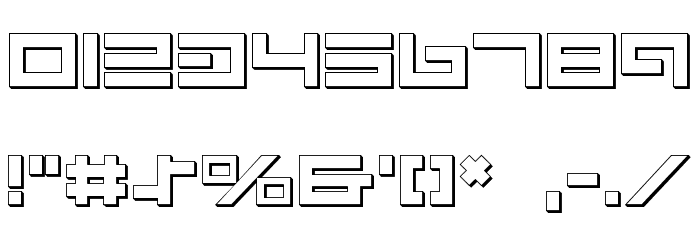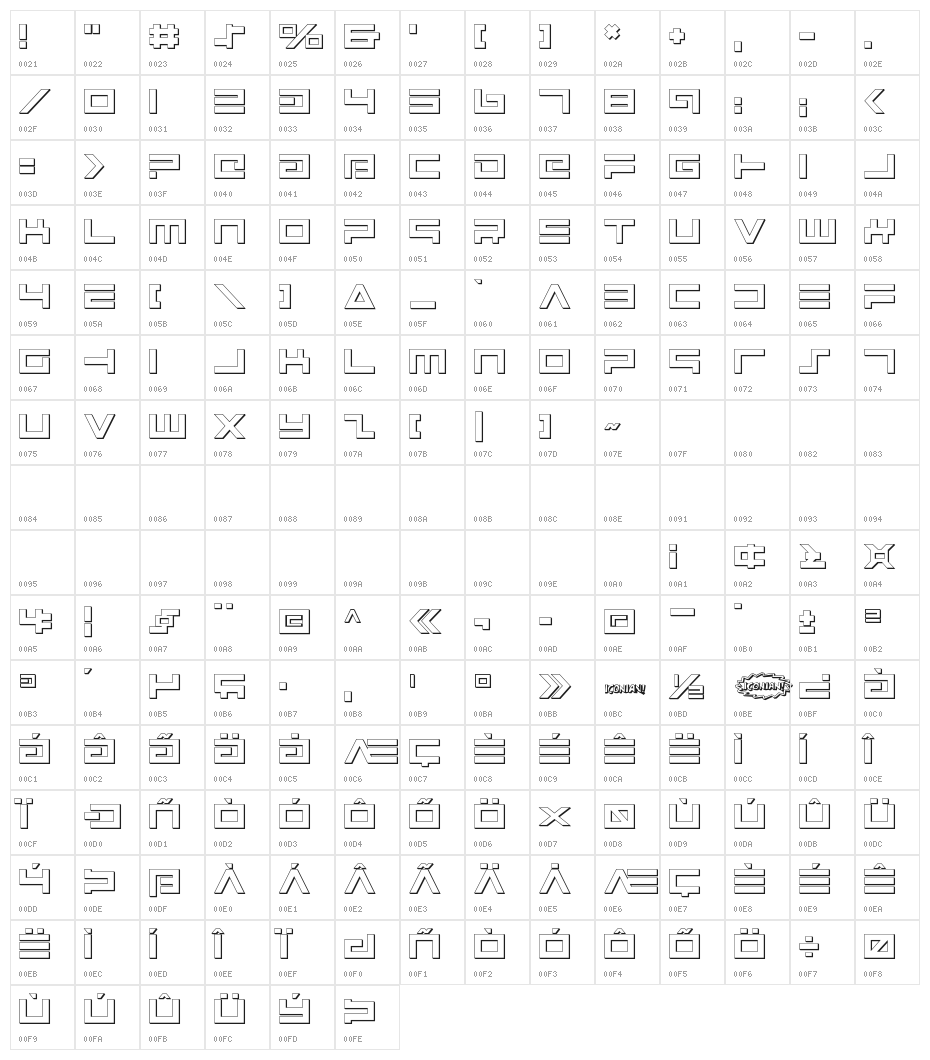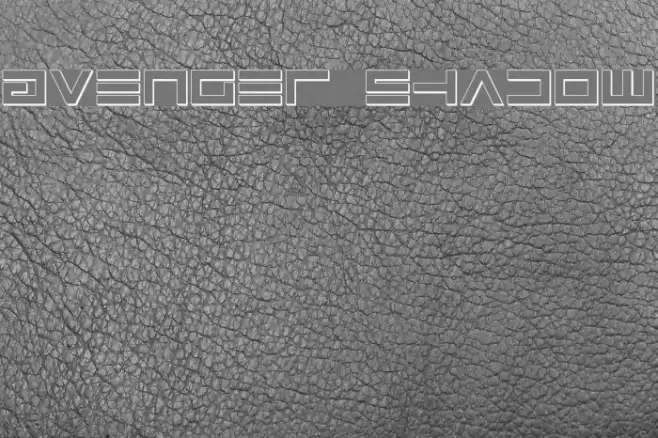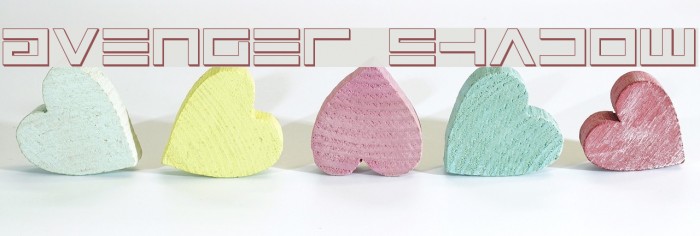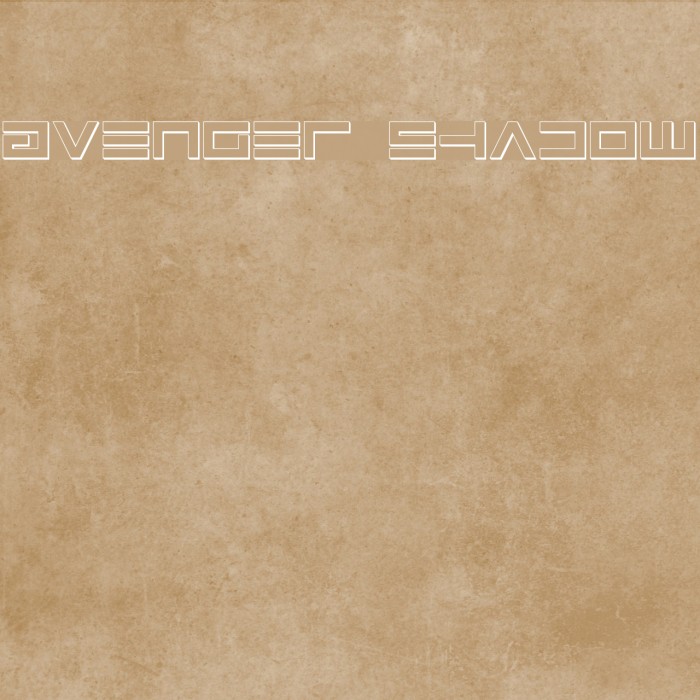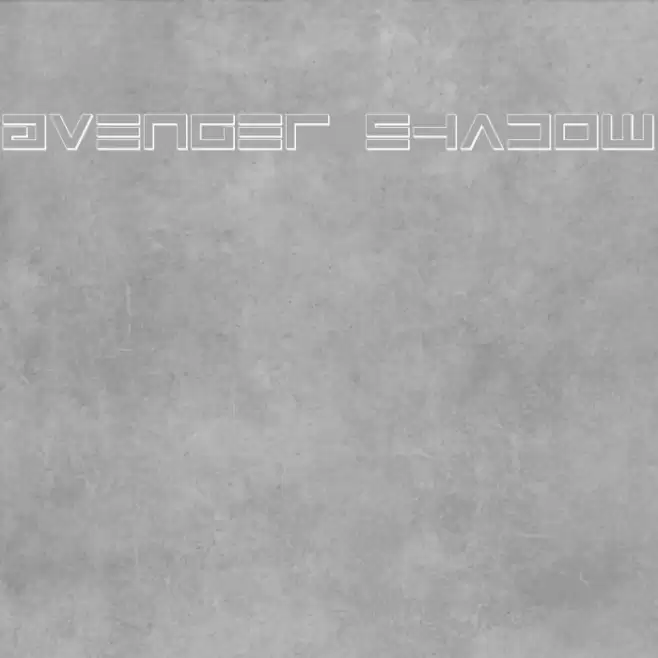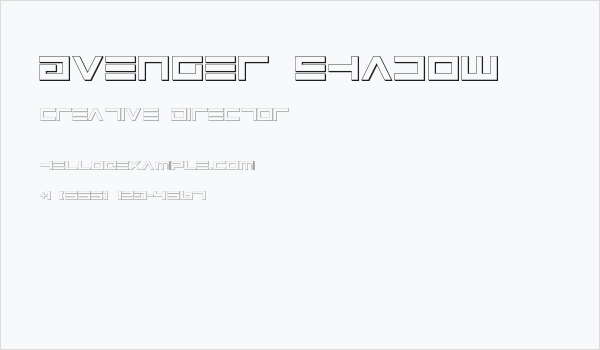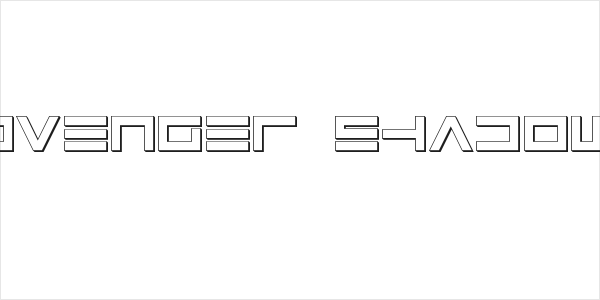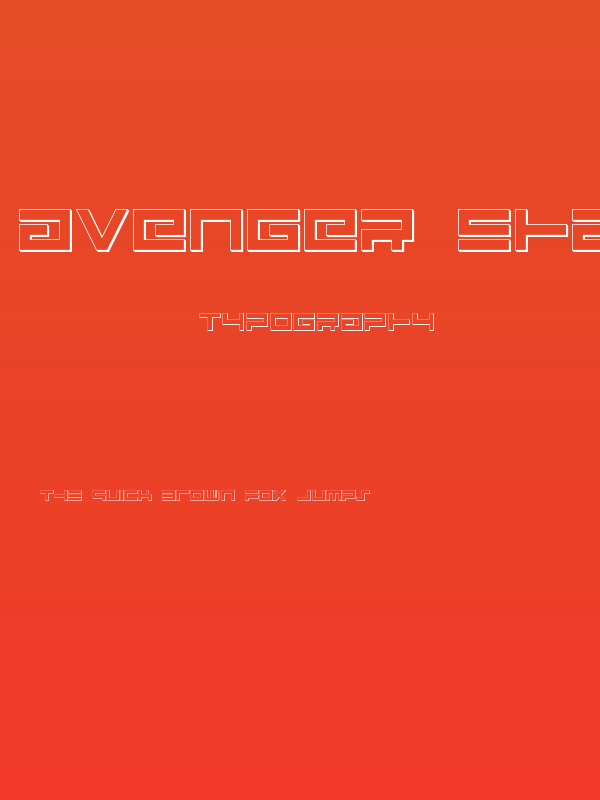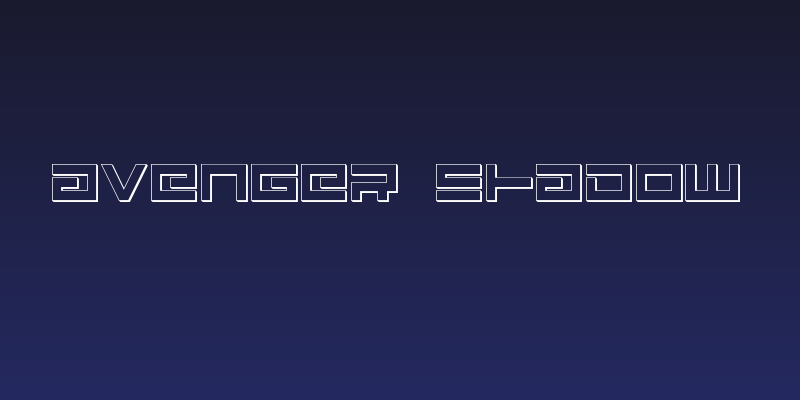
Avenger Shadow Font
Avenger Shadow Description
This font features a bold, geometric design with a futuristic and angular appearance. The characters are outlined, giving them a hollow look that adds a sense of depth and dimension. The uppercase and lowercase letters share a consistent style, with sharp edges and a uniform thickness throughout. Numbers and special characters maintain the same aesthetic, ensuring a cohesive look across all text elements. The font's unique style makes it stand out, ideal for projects that require a modern and tech-inspired feel.
| Proposed Projects | Ideal for sci-fi themed posters, video game graphics, tech branding, and modern web design. |